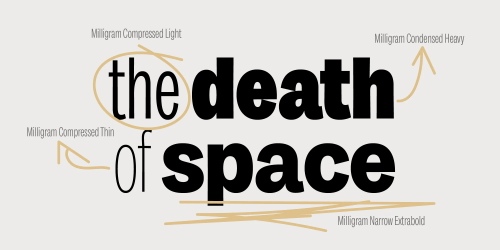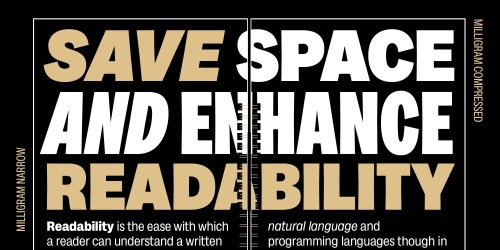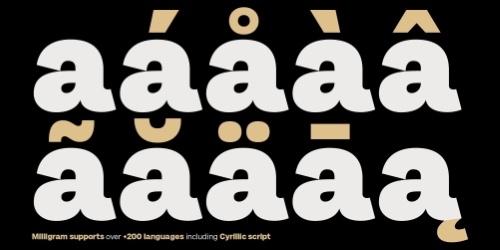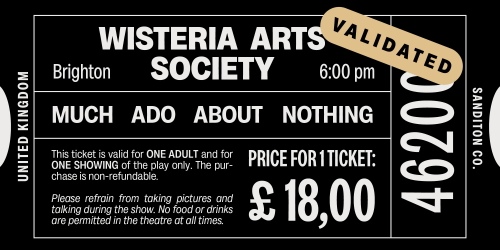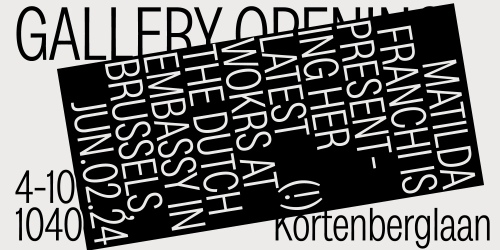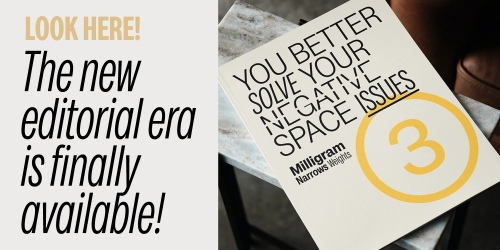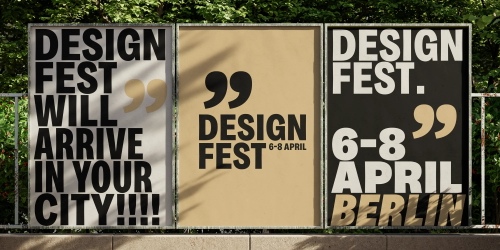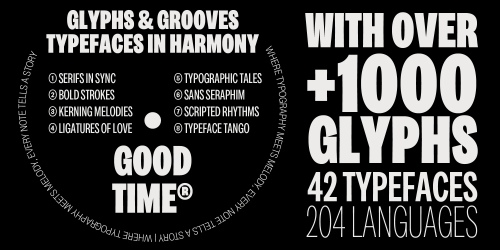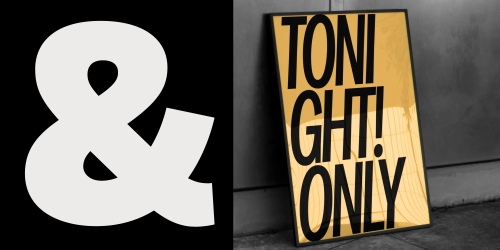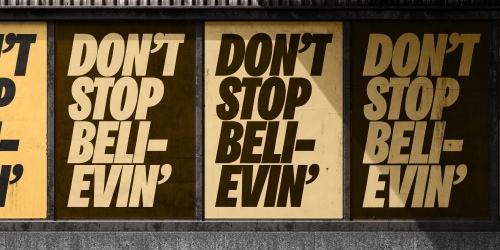
Milligram - Full Family 102 Styles
+ 4 Variable Types
- Designed by Cosimo Lorenzo Pancini with Andrea Tartarelli, Milligram is a typeface that follows the grotesque sans serif canon without pursuing clinical Swiss orthodoxy. Rather, it borrows from metal-type quirks - slanted terminal cuts, slightly tapered verticals, round dots and soft curve joins - to achieve a warmer, more human reading texture. That makes it sit comfortably beside classic old grotesques while staying fully current in rhythm and proportions.